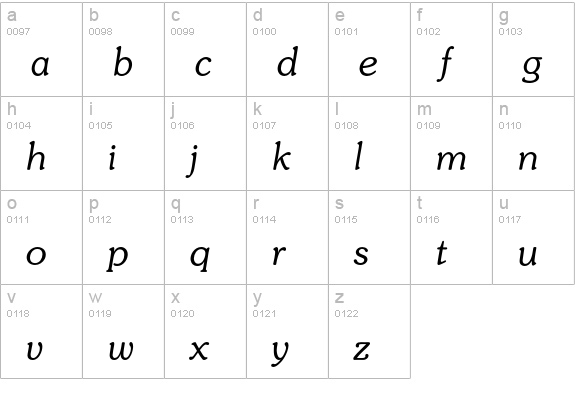
Souvenir* Light Italic is a refined, elegant, italic variant in the Souvenir* typeface family \xE2\x80\x94 well suited to elegant body text, refined sub-headings, and luxury branding.
Souvenir Light Italic font is a stunning and elegant typeface that adds a touch of sophistication to any project. Its delicate curves and slight slant give it a unique and refined appearance, making it perfect for invitations, wedding stationery, branding materials, and more. With its graceful and flowing letterforms, Souvenir Light Italic font effortlessly conveys a sense of elegance and class. Whether used for headlines, subheadings, or body text, this font captures attention and adds a touch of professionalism to any design. What makes Souvenir Light Italic font even more remarkable is that it is available for free download at FontsMarket.com. This means that you can enhance your projects with this exquisite typeface without any additional cost. Simply visit FontsMarket.com and start using this beautiful font in your designs today! Whether you are a professional designer or a creative enthusiast, Souvenir Light Italic font is a must-have in your font library. Its timeless charm and versatility make it suitable for a wide range of applications. So, why wait? Download Souvenir Light Italic font for free at FontsMarket.com and let your designs shine with elegance and style.